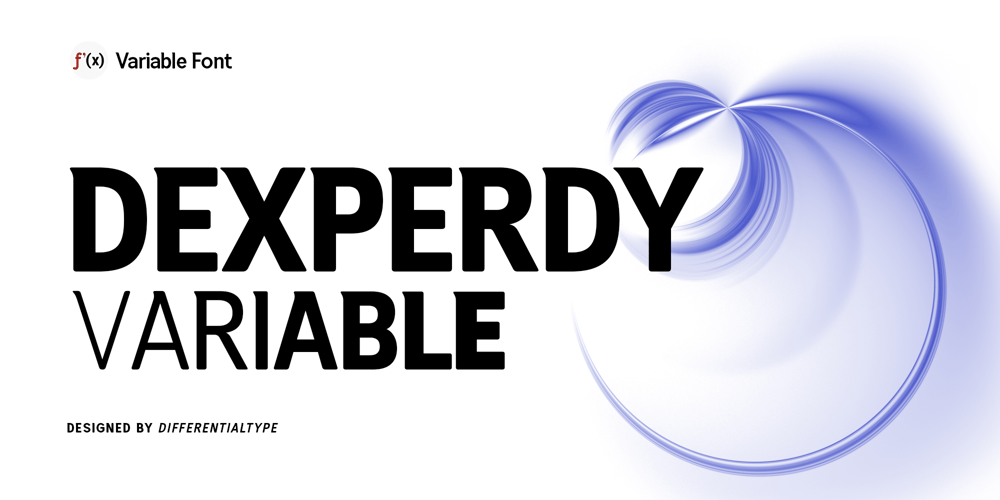
Dexperdy Variable Font Family was designed by Sidik Sidik and published by Differentialtype. Dexperdy Variable contains 1 styles and family package options. Experience the minimalist and unique appeal of Dexperdy, a collection of modern sans serif fonts that emphasize volume with clean lines and nuanced curves. Dexperdy now comes with variable fonts. With unmatched versatility, Dexperdy is perfectly equipped for many design applications – be it dynamic titles, striking logos, or impactful editorial work. Experience the Dexperdy variable that effortlessly combines power and subtlety to leave a lasting impression.